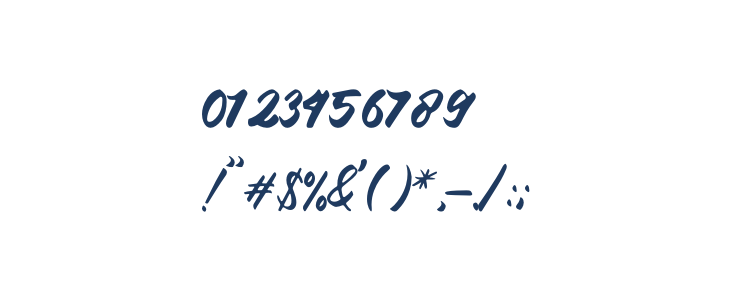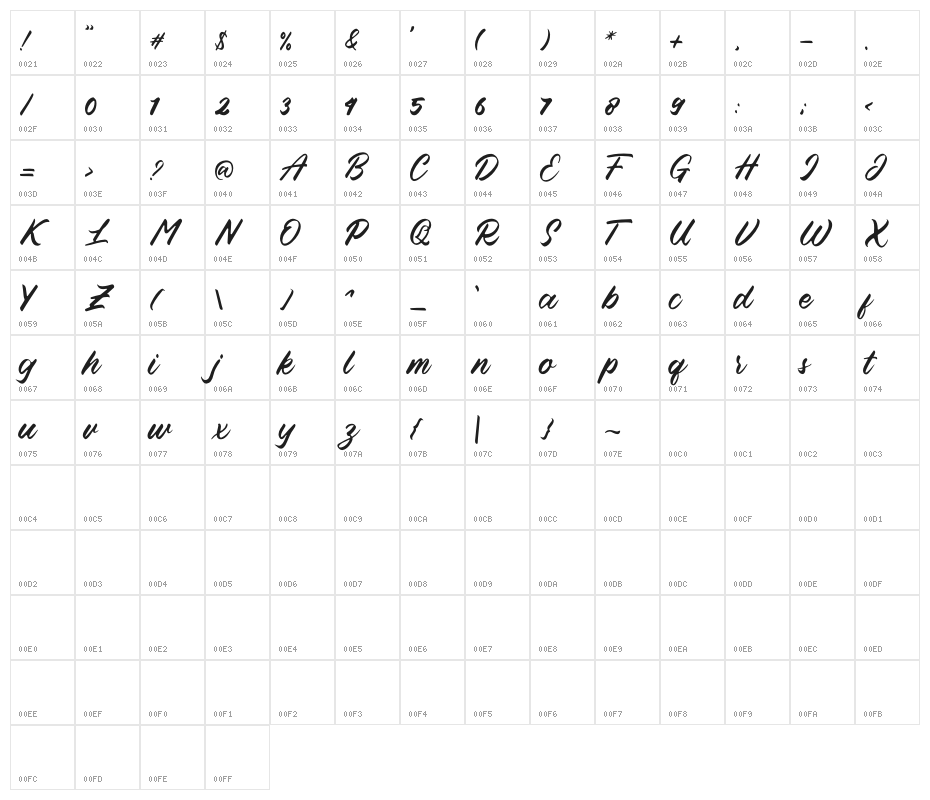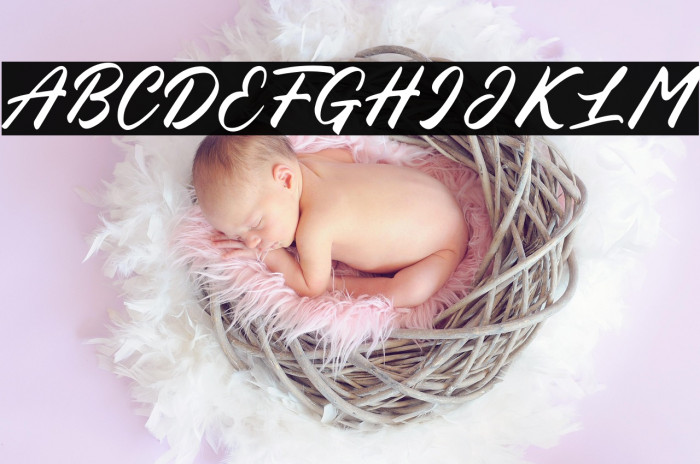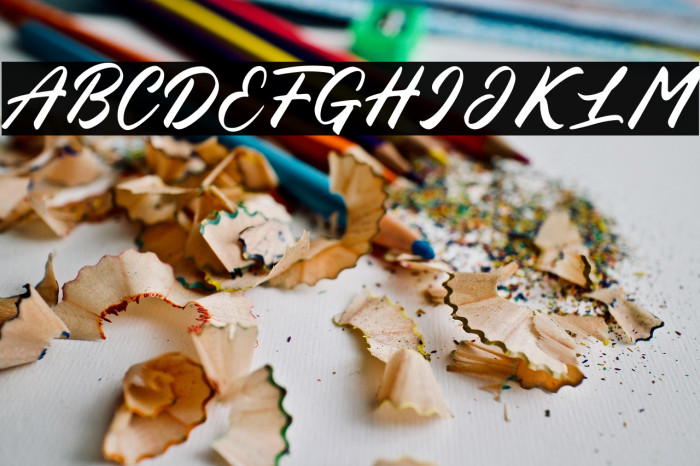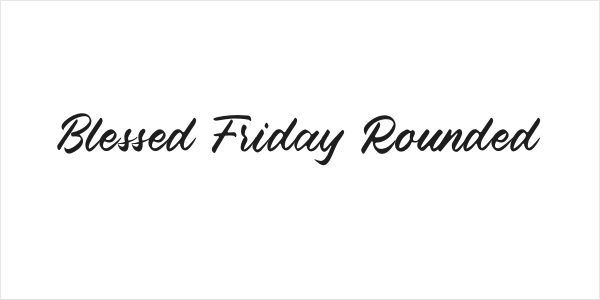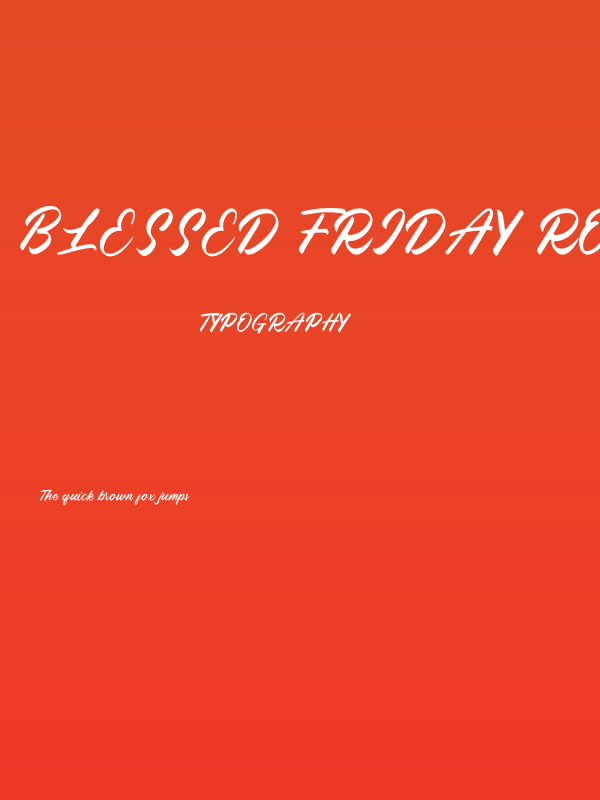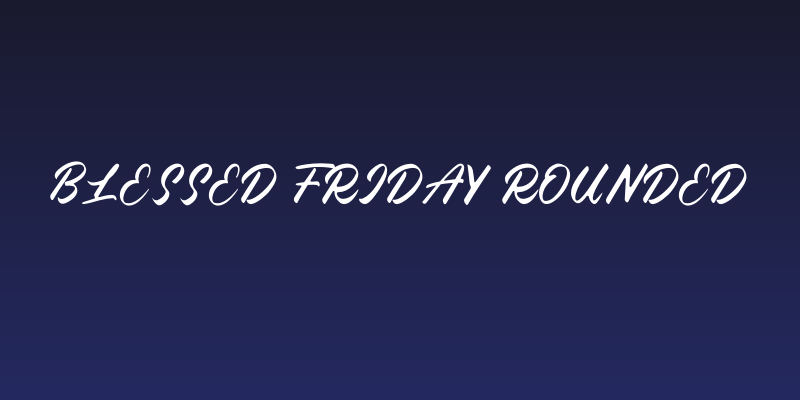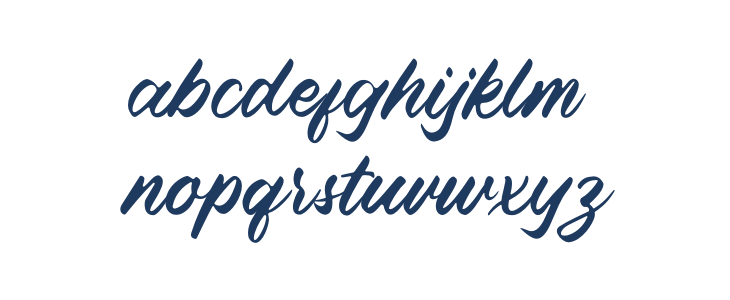
Blessed Friday Rounded Font
| Caso d'uso | Logos, Headlines, Invitations |
| Progetti proposti | Ideal for wedding invitations, greeting cards, branding projects, and elegant signage. |